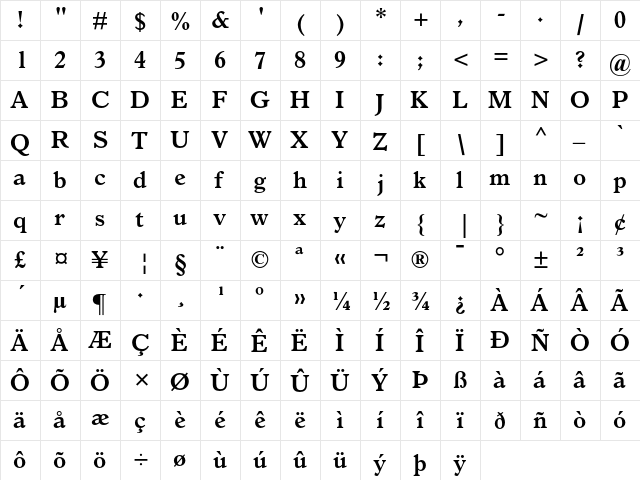
Italian Old Style MT Bold
Design Context for Italian Old Style MT Typeface
Italian Old Style MT is a composed and adaptable typeface that performs quietly and consistently across a wide range of design contexts. The heavy weight commands attention and anchors typographic hierarchies.